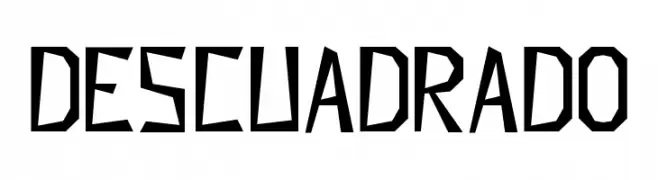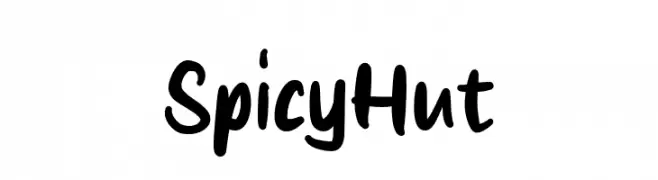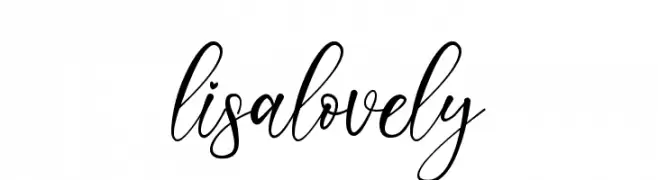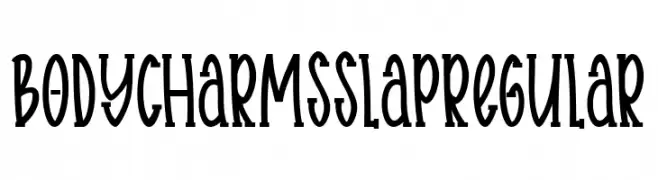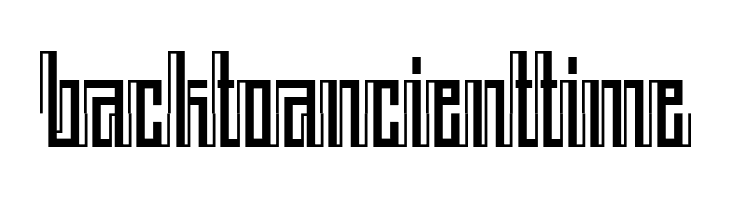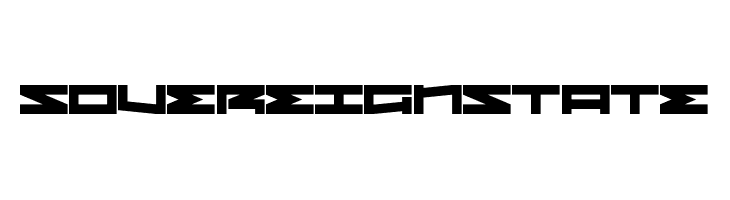
A modern, condensed sans-serif font with a semi-bold weight, ideal for clear and professional text.
A bold, brush-style font with an energetic and handcrafted appearance.
A pixelated, digital watch-inspired font with characters enclosed in watch outlines.
( Jaime Rangel Castro )
A bold, angular font with a geometric and edgy design.
A playful, handwritten-style font with bold, rounded strokes and a lively character.
A charming and elegant script font with flowing, cursive letters.
A whimsical, narrow font with a playful, hand-drawn style.
( Fonts by Cumberland Fontworks )
Stone-patterned decorative font with mosaic-like characters.
A bold, italic font with a dynamic and modern style.
A playful, handwritten script font with a casual and friendly style.